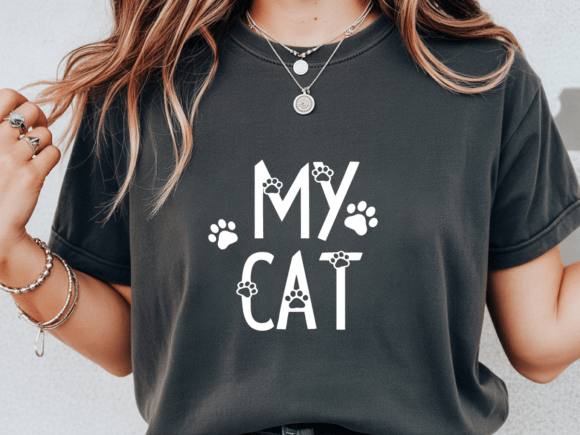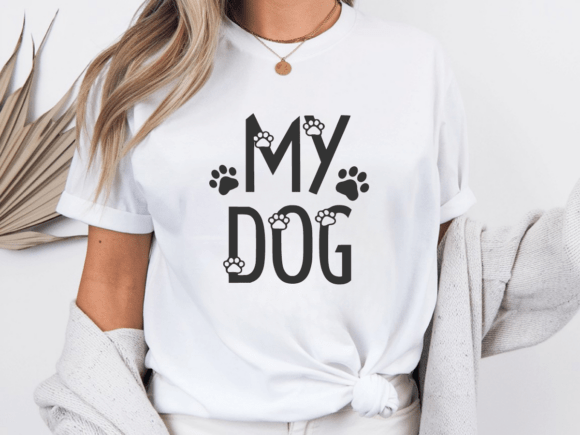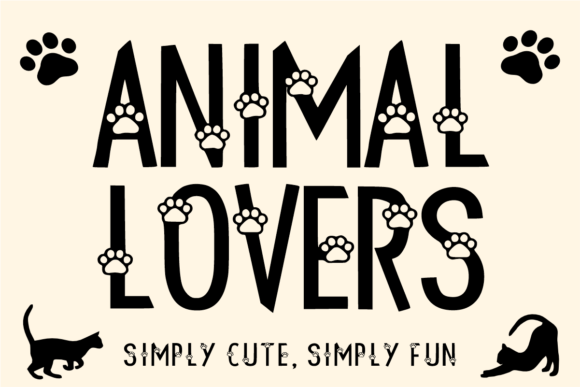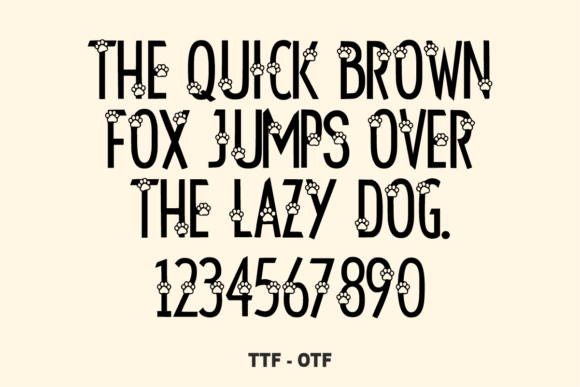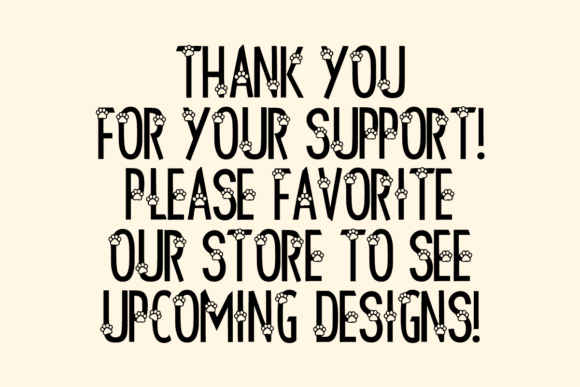
Introducing Cute Cat: The Playful Paw Print Font That Adds a Purr-fect Touch to Your Designs 🐾🐱
Are you a designer, crafter, or pet lover looking for a unique and playful font to add some whimsy to your work? Look no further than Cute Cat, a delightful decorative font that celebrates our feline friends! This charming font features adorable cat paw prints in each uppercase letter, blending a clean, modern aesthetic with a playful twist.
The Purr-fect Font for Pet Lovers and Crafters 🐾
Cute Cat is the ultimate choice for anyone looking to add a “paws-itive” touch to their designs. Whether you’re crafting for a cat cafe, creating “Pet Mom” apparel, or designing cute stickers, this font is guaranteed to stand out. Its bold and playful design makes it perfect for a variety of projects, from custom apparel and pet accessories to DIY crafts and classroom decor.
Key Features of Cute Cat Font 🐱
- Adorable Cat Paw Prints: Each uppercase letter features a unique and adorable cat paw print design, adding a playful touch to your work.
- Clean and Modern Aesthetic: The font’s clean and modern design ensures that it works seamlessly across all design platforms.
- Easy to Weed for Vinyl Projects: The font’s design makes it easy to weed for vinyl projects, making it perfect for crafters and designers.
- Versatile: Cute Cat font works perfectly for a variety of projects, from custom apparel and pet accessories to DIY crafts and classroom decor.
Perfect for a Variety of Projects 🎨
Cute Cat font is perfect for a wide range of projects, including:
- Custom Apparel: Add a playful touch to your custom apparel, such as T-shirts, hoodies, and baby onesies.
- Pet Accessories: Create adorable pet accessories, such as tags, bowls, and pet bed decals.
- DIY Crafts: Use Cute Cat font for your DIY crafts, such as vinyl cutting, scrapbooking, and card making.
- Classroom & Kids Decor: Add a playful touch to your classroom and kids’ decor, such as posters, labels, and worksheets.
- Social Media: Use Cute Cat font to create engaging social media content, such as pet influencers, YouTube banners, and Pinterest pins.
Get Creative with Cute Cat Font 🐾✨
With Cute Cat font, you can create a wide range of fun and playful designs that are sure to delight pet lovers and kids alike. Here are some ideas to get you started:
- Create custom pet-themed apparel and accessories for pet lovers.
- Design adorable stickers and decals for laptops, water bottles, and more.
- Make playful posters and labels for your classroom or home.
- Design engaging social media content for pet influencers and pet-related businesses.
Why Choose Cute Cat Font? 🐱
There are many reasons why Cute Cat font stands out from the rest:
- Unique Design: The font’s unique design featuring adorable cat paw prints sets it apart from other fonts.
- Easy to Use: The font is easy to use and works seamlessly across all design platforms.
- Versatile: Cute Cat font is perfect for a wide range of projects, from custom apparel to DIY crafts.
- Fun and Playful: The font’s playful design is sure to add a fun and playful touch to your work.